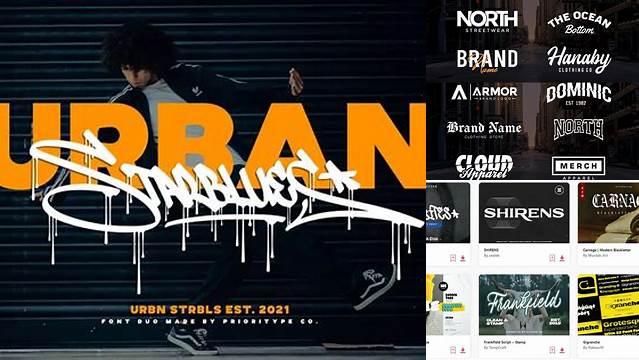
Best Fonts For Streetwear: Design Guide
Streetwear design is all about making a statement, and the fonts you choose play a massive role in conveying that message. Whether you're crafting a logo, designing a t-shirt, or putting together a whole collection, the right font can elevate your streetwear from basic to iconic. Forget those generic, overused fontsβwe're diving deep into the world of typography to find the best fonts for streetwear design that scream authenticity and edge. In this guide, we'll explore a variety of font styles, from bold and blocky to sleek and modern, giving you the inspiration you need to make your designs pop. So, buckle up, designers, and let's get font-tastic!
1. Bold Sans-Serif Fonts for Streetwear
When it comes to streetwear, bold sans-serif fonts are a go-to choice. They're clean, modern, and pack a visual punch that demands attention. These fonts work particularly well for logos, headlines, and designs where you want to make a strong statement. Imagine a simple yet impactful logo on a t-shirt β a bold sans-serif font can be the perfect way to achieve that. Think about brands like Supreme or Off-White; they often utilize bold, minimalist sans-serif fonts to create a recognizable and impactful brand identity. For example, fonts like Futura, Impact, and Helvetica Neue are excellent starting points. These fonts have a timeless quality and are incredibly versatile. You can use them as-is or tweak them slightly to create something truly unique. Experiment with different weights and letter spacing to find the perfect balance for your design. Remember, the key is to choose a font that reflects the overall vibe of your streetwear brand.
2. Vintage and Retro Fonts in Streetwear
If you're aiming for a more nostalgic or old-school vibe, vintage and retro fonts are your best friends. These fonts often have a textured or slightly distressed look, which adds character and authenticity to your designs. Vintage fonts can evoke a sense of history and craftsmanship, making them ideal for brands that want to connect with a sense of the past. Imagine a classic varsity-style jacket with a vintage-inspired font proclaiming your brand's name. Fonts like Bebas Neue, Montserrat, and League Gothic can give your designs that timeless appeal. Experiment with different textures and effects to enhance the vintage feel. Think about adding a subtle shadow or a distressed overlay to make the font look like it's been around for decades. These little details can make a big difference in creating an authentic retro aesthetic. Don't be afraid to mix and match vintage fonts with modern elements to create a unique and eye-catching design.
3. Distressed Fonts for Urban Apparel
Distressed fonts are perfect for adding a raw and edgy feel to your streetwear designs. These fonts often have rough edges, irregular lines, and a generally worn-out appearance, which can convey a sense of urban grit and authenticity. If your brand is all about pushing boundaries and embracing the unconventional, distressed fonts can be a fantastic way to communicate that message. Think about graffiti-inspired designs or band merchandise β distressed fonts are often used to create a sense of rebellious energy. Fonts like Urban Decay, Stencil, and Grungy can give your designs that authentic, street-level vibe. Experiment with different levels of distress to find the right balance for your design. Too much distress can make the font illegible, so it's important to find a sweet spot. Also, consider the context in which the font will be used. A heavily distressed font might work well for a large graphic on a t-shirt, but it might not be suitable for smaller text on a label or tag.
4. Script and Cursive Fonts for Streetwear Branding
While script and cursive fonts might not be the first thing that comes to mind when you think of streetwear, they can actually be a powerful way to add a touch of elegance and sophistication to your designs. When used sparingly and strategically, script fonts can create a unique contrast with the more rugged and edgy elements of streetwear. Imagine a sleek, minimalist logo with a subtle script font accent or a t-shirt design that combines a bold sans-serif font with a delicate cursive flourish. Fonts like Brush Script MT, Pacifico, and Lobster can add a touch of personality and flair to your designs. However, it's important to choose a script font that is legible and easy to read. Avoid overly ornate or complicated fonts that can be difficult to decipher. Also, consider the overall tone of your brand. A sophisticated script font might not be the best choice for a brand that is all about raw, rebellious energy.
5. Monospace Fonts in Streetwear Design
Monospace fonts, where each character takes up the same amount of horizontal space, offer a unique and tech-inspired aesthetic that can be surprisingly effective in streetwear design. These fonts often evoke a sense of coding, technology, and the digital world, making them ideal for brands that want to project a modern and forward-thinking image. Think about designs that incorporate elements of cyberpunk or futuristic aesthetics β monospace fonts can be the perfect way to complement these themes. Fonts like Courier New, Monaco, and Consolas can give your designs that distinct, technical feel. Experiment with different weights and styles to find the perfect balance for your design. Monospace fonts can be particularly effective for creating logos, labels, and other small text elements. However, they can be less legible for larger blocks of text, so it's important to use them judiciously. Also, consider the overall context in which the font will be used. A monospace font might work well for a minimalist logo on a t-shirt, but it might not be suitable for a large headline on a poster.
6. Graffiti-Inspired Fonts for Street Art Style
For a true street art vibe, graffiti-inspired fonts are a must-have in your design arsenal. These fonts often feature bold, stylized letterforms with a raw and energetic feel, perfectly capturing the spirit of urban art. If your brand is all about embracing the underground culture and celebrating artistic expression, graffiti fonts can be a fantastic way to communicate that message. Imagine a mural-style design on a hoodie or a t-shirt with a bold graffiti-inspired logo. Fonts like Vandalism, Ruthless, and Bombing can give your designs that authentic, street-level edge. Experiment with different colors, textures, and effects to enhance the graffiti aesthetic. Think about adding drips, splatters, and other imperfections to make the font look like it was hand-painted on a wall. These little details can make a big difference in creating an authentic graffiti vibe. However, it's important to use graffiti fonts responsibly and avoid appropriating the culture without giving proper credit.
7. Geometric Fonts for Modern Streetwear
Geometric fonts, characterized by their clean lines, simple shapes, and mathematical precision, offer a modern and sophisticated aesthetic that can be a great fit for streetwear design. These fonts often convey a sense of order, structure, and technical prowess, making them ideal for brands that want to project a contemporary and forward-thinking image. Think about minimalist designs or those that incorporate elements of architecture or engineering β geometric fonts can be the perfect way to complement these themes. Fonts like Futura, Avant Garde, and Century Gothic can give your designs that sleek, modern feel. Experiment with different weights and styles to find the perfect balance for your design. Geometric fonts can be particularly effective for creating logos, headlines, and other prominent text elements. However, they can sometimes feel a bit sterile or impersonal, so it's important to use them judiciously and add other elements to create a sense of warmth and personality. Also, consider the overall context in which the font will be used. A geometric font might work well for a high-end streetwear brand, but it might not be the best choice for a brand that is all about raw, rebellious energy.
8. Handwritten Fonts for a Personal Touch
To add a personal and authentic touch to your streetwear designs, consider using handwritten fonts. These fonts mimic the look of handwriting, adding a human element that can make your designs feel more relatable and approachable. Whether you're creating a custom logo, designing a t-shirt with a handwritten quote, or adding a personal message to a garment, handwritten fonts can help you connect with your audience on a deeper level. Fonts like Amatic SC, Permanent Marker, and Indie Flower can give your designs that unique, handmade feel. Experiment with different styles and weights to find the perfect balance for your design. Some handwritten fonts are bold and assertive, while others are delicate and whimsical. Choose a font that reflects the overall tone of your brand and the message you want to convey. Also, consider the legibility of the font. Avoid overly stylized or complicated fonts that can be difficult to read. Remember, the goal is to add a personal touch without sacrificing clarity.
9. Slab Serif Fonts in Streetwear Graphics
Slab serif fonts, with their bold, blocky serifs, offer a distinctive and powerful aesthetic that can be surprisingly effective in streetwear graphics. These fonts often convey a sense of strength, stability, and authority, making them ideal for brands that want to project a confident and assertive image. Think about designs that incorporate elements of industrial design or vintage signage β slab serif fonts can be the perfect way to complement these themes. Fonts like Rockwell, Courier Prime, and Arvo can give your designs that distinct, impactful feel. Experiment with different weights and styles to find the perfect balance for your design. Slab serif fonts can be particularly effective for creating logos, headlines, and other prominent text elements. However, they can sometimes feel a bit heavy or overwhelming, so it's important to use them judiciously and add other elements to create a sense of balance and visual interest. Also, consider the overall context in which the font will be used. A slab serif font might work well for a streetwear brand that is all about making a bold statement, but it might not be the best choice for a brand that is aiming for a more subtle and understated aesthetic.
10. Outline Fonts for a Modern Look
For a clean and contemporary aesthetic, outline fonts can be a great choice for your streetwear designs. These fonts feature hollow letterforms, creating a light and airy feel that can add a touch of sophistication to your graphics. Whether you're designing a logo, creating a pattern, or adding text to a garment, outline fonts can help you achieve a modern and minimalist look. Fonts like Hollow, Nexa Rust, and Contoura can give your designs that sleek, contemporary edge. Experiment with different line weights and spacing to find the perfect balance for your design. Thicker lines will create a bolder and more impactful look, while thinner lines will create a more delicate and refined feel. Also, consider the color of the outline and the background. A contrasting color will make the font stand out more, while a similar color will create a more subtle and understated effect. Keep in mind that outline fonts can sometimes be less legible than solid fonts, especially at smaller sizes. Make sure the font is easy to read before using it in your designs.
11. Layered Fonts for Unique Designs
Layered fonts are a fantastic way to create unique and eye-catching designs in streetwear. These fonts consist of multiple layers that can be stacked on top of each other to create a variety of different effects. Whether you're designing a logo, creating a pattern, or adding text to a garment, layered fonts can help you achieve a complex and visually interesting look. Think about adding shadows, highlights, or other decorative elements to your text. Fonts like Block Layer, Modular, and Multilayer can give your designs that extra dimension. Experiment with different colors, textures, and blending modes to create a truly unique effect. However, keep in mind that layered fonts can be more complex to work with than traditional fonts. You'll need to use design software that supports layering, and you'll need to be careful to align the layers properly. Also, be aware that layered fonts can sometimes be less legible than simpler fonts, especially at smaller sizes. Make sure the font is easy to read before using it in your designs.
12. 3D Fonts for Eye-Catching Streetwear
To really make your streetwear designs pop, consider using 3D fonts. These fonts create the illusion of depth and dimension, adding a sense of realism and visual interest to your graphics. Whether you're designing a logo, creating a poster, or adding text to a garment, 3D fonts can help you grab attention and make a lasting impression. Imagine a logo that appears to jump off the page or a t-shirt design with text that looks like it's been chiseled from stone. Fonts like Extrude, Depth, and Shadowed can give your designs that extra dimension. Experiment with different lighting effects, shadows, and textures to create a truly realistic look. However, keep in mind that 3D fonts can be more complex to work with than traditional fonts. You'll need to use design software that supports 3D rendering, and you'll need to be careful to create a realistic and believable effect. Also, be aware that 3D fonts can sometimes be less legible than simpler fonts, especially at smaller sizes. Make sure the font is easy to read before using it in your designs.
13. Pixel Fonts for a Retro Gaming Aesthetic
If you're looking to add a touch of retro gaming nostalgia to your streetwear designs, pixel fonts are the way to go. These fonts mimic the look of early video game consoles and computers, creating a pixelated and blocky aesthetic that can be both charming and eye-catching. Whether you're designing a logo, creating a pattern, or adding text to a garment, pixel fonts can help you capture that retro gaming vibe. Think about designs that incorporate elements of 8-bit or 16-bit graphics β pixel fonts can be the perfect way to complement these themes. Fonts like 8-Bit Madness, Pixel Operator, and Press Start 2P can give your designs that distinct, retro feel. Experiment with different colors and sizes to create a truly authentic look. However, keep in mind that pixel fonts can be less legible than traditional fonts, especially at smaller sizes. Make sure the font is easy to read before using it in your designs.
14. Brush Fonts for Artistic Flair
Brush fonts are an excellent choice for adding an artistic and expressive touch to your streetwear designs. These fonts mimic the look of hand-painted brushstrokes, creating a dynamic and organic feel that can add a sense of personality and flair to your graphics. Whether you're designing a logo, creating a poster, or adding text to a garment, brush fonts can help you convey a sense of creativity and originality. Imagine a logo with a hand-painted feel or a t-shirt design with text that looks like it was brushed onto the fabric. Fonts like Selima, Milkshake, and Stay Radical can give your designs that artistic edge. Experiment with different brush styles and textures to create a truly unique look. However, keep in mind that brush fonts can sometimes be less legible than traditional fonts, especially at smaller sizes. Make sure the font is easy to read before using it in your designs.
15. Stencil Fonts for Industrial Style
For a rugged and industrial aesthetic, stencil fonts are a perfect choice for your streetwear designs. These fonts mimic the look of stenciled lettering, creating a bold and utilitarian feel that can add a sense of authenticity and grit to your graphics. Whether you're designing a logo, creating a pattern, or adding text to a garment, stencil fonts can help you convey a sense of durability and strength. Think about designs that incorporate elements of military or industrial design β stencil fonts can be the perfect way to complement these themes. Fonts like Stencil, Army, and Railroad can give your designs that distinct, industrial edge. Experiment with different stencil styles and textures to create a truly authentic look. However, keep in mind that stencil fonts can sometimes be less legible than traditional fonts, especially at smaller sizes. Make sure the font is easy to read before using it in your designs.
16. Condensed Fonts for Space Optimization
When you need to fit a lot of text into a limited space, condensed fonts are your best friend in streetwear design. These fonts are designed with narrower letterforms, allowing you to squeeze more text into a smaller area without sacrificing legibility. Whether you're designing a label, creating a tag, or adding text to a garment, condensed fonts can help you maximize your space and get your message across effectively. Fonts like Bebas Neue, Montserrat Condensed, and Oswald can give you that extra space you need. Experiment with different weights and styles to find the perfect balance for your design. However, be careful not to over-condense the font, as this can make it difficult to read. Also, consider the overall context in which the font will be used. A condensed font might work well for a label on a t-shirt, but it might not be suitable for a headline on a poster.
17. Extended Fonts for Visual Impact
On the flip side, if you want to create a bold and impactful visual statement, extended fonts can be a great choice for your streetwear designs. These fonts are designed with wider letterforms, giving them a larger and more imposing presence. Whether you're designing a logo, creating a poster, or adding text to a garment, extended fonts can help you grab attention and make a lasting impression. Think about designs that need to command attention and stand out from the crowd β extended fonts can be the perfect way to achieve that. Fonts like Impact, Ultra, and Wide Latin can give your designs that extra visual punch. Experiment with different weights and styles to find the perfect balance for your design. However, be careful not to over-extend the font, as this can make it difficult to read. Also, consider the overall context in which the font will be used. An extended font might work well for a logo on a t-shirt, but it might not be suitable for a large block of text.
18. Rounded Fonts for a Friendly Vibe
To create a friendly and approachable vibe in your streetwear designs, consider using rounded fonts. These fonts feature soft, rounded edges, giving them a warm and inviting feel that can make your designs more appealing to a wider audience. Whether you're designing a logo, creating a pattern, or adding text to a garment, rounded fonts can help you connect with your audience on a more personal level. Think about brands that want to project a sense of warmth and inclusivity β rounded fonts can be the perfect way to communicate that message. Fonts like Comfortaa, Quicksand, and Nunito can give your designs that friendly touch. Experiment with different weights and styles to find the perfect balance for your design. However, be careful not to overuse rounded fonts, as this can make your designs feel too childish or informal. Also, consider the overall context in which the font will be used. A rounded font might work well for a streetwear brand that is targeting a younger audience, but it might not be the best choice for a brand that is aiming for a more sophisticated and edgy aesthetic.
19. Italic Fonts for Emphasis and Style
Italic fonts are a versatile tool for adding emphasis and style to your streetwear designs. These fonts feature slanted letterforms, creating a sense of movement and dynamism that can draw the eye and highlight important information. Whether you're designing a headline, creating a caption, or adding a subtle accent to your text, italic fonts can help you add a touch of sophistication and flair to your graphics. Use them sparingly to emphasize key words or phrases, or use them more liberally to create a sense of flow and energy. Fonts like Helvetica Italic, Times New Roman Italic, and Arial Italic can give your designs that extra touch of style. Experiment with different weights and styles to find the perfect balance for your design. However, be careful not to overuse italic fonts, as this can make your designs feel cluttered or overwhelming. Also, consider the overall context in which the font will be used. An italic font might work well for a quote on a t-shirt, but it might not be suitable for a logo or a headline.
20. Light Fonts for Elegance and Subtlety
For a touch of elegance and subtlety in your streetwear designs, light fonts are an excellent choice. These fonts feature thin, delicate letterforms, creating a sense of airiness and refinement that can add a touch of sophistication to your graphics. Whether you're designing a logo, creating a pattern, or adding text to a garment, light fonts can help you convey a sense of understated style and sophistication. Think about brands that want to project a sense of luxury and exclusivity β light fonts can be the perfect way to communicate that message. Fonts like Open Sans Light, Lato Light, and Roboto Light can give your designs that elegant touch. Experiment with different weights and styles to find the perfect balance for your design. However, be careful not to overuse light fonts, as this can make your designs difficult to read, especially on busy backgrounds. Also, consider the overall context in which the font will be used. A light font might work well for a logo on a high-end garment, but it might not be suitable for a headline on a poster.
21. Heavy Fonts for Maximum Impact
When you need to make a bold and unforgettable statement, heavy fonts are the way to go in streetwear design. These fonts feature thick, weighty letterforms, creating a sense of power and authority that can command attention and leave a lasting impression. Whether you're designing a logo, creating a poster, or adding text to a garment, heavy fonts can help you grab attention and make a statement. Think about brands that want to project a sense of strength and dominance β heavy fonts can be the perfect way to communicate that message. Fonts like Impact, Bebas Neue Bold, and Arial Black can give your designs that maximum impact. Experiment with different colors and styles to create a truly unforgettable look. However, be careful not to overuse heavy fonts, as this can make your designs feel overwhelming or aggressive. Also, consider the overall context in which the font will be used. A heavy font might work well for a logo on a t-shirt, but it might not be suitable for a large block of text.
22. All Caps Fonts for Bold Statements
All caps fonts are a classic choice for making bold and assertive statements in streetwear design. By using all uppercase letters, these fonts create a sense of authority and directness that can grab attention and convey a sense of importance. Whether you're designing a logo, creating a headline, or adding text to a garment, all caps fonts can help you make a statement and get your message across effectively. Think about brands that want to project a sense of confidence and power β all caps fonts can be the perfect way to communicate that message. Any font can be used in all caps, but some fonts are specifically designed for this purpose. Experiment with different sizes and styles to find the perfect balance for your design. However, be careful not to overuse all caps fonts, as this can make your designs feel aggressive or shouty. Also, consider the overall context in which the font will be used. All caps fonts might work well for a logo or a headline, but they might not be suitable for a large block of text.
23. Lowercase Fonts for a Modern Twist
For a modern and contemporary twist on streetwear design, consider using lowercase fonts. By using all lowercase letters, these fonts create a sense of informality and approachability that can make your designs feel more friendly and inviting. Whether you're designing a logo, creating a headline, or adding text to a garment, lowercase fonts can help you connect with your audience on a more personal level. Think about brands that want to project a sense of inclusivity and accessibility β lowercase fonts can be the perfect way to communicate that message. Any font can be used in lowercase, but some fonts are specifically designed for this purpose. Experiment with different sizes and styles to find the perfect balance for your design. However, be careful not to overuse lowercase fonts, as this can make your designs feel too casual or unprofessional. Also, consider the overall context in which the font will be used. Lowercase fonts might work well for a logo or a headline, but they might not be suitable for a formal document or a legal disclaimer.
24. Variable Fonts for Customization
Variable fonts are the future of typography, offering unparalleled flexibility and customization for your streetwear designs. These fonts allow you to adjust various parameters, such as weight, width, and slant, to create a wide range of different styles from a single font file. Whether you're designing a logo, creating a pattern, or adding text to a garment, variable fonts can help you achieve a unique and personalized look that sets your designs apart from the competition. Think about brands that want to push the boundaries of creativity and innovation β variable fonts can be the perfect tool for achieving that goal. Experiment with different settings and parameters to find the perfect balance for your design. However, keep in mind that variable fonts are a relatively new technology, and not all design software supports them fully. Make sure your software is compatible before using variable fonts in your designs. Also, be aware that variable fonts can sometimes be more complex to work with than traditional fonts. You'll need to understand how to adjust the various parameters to achieve the desired effect.
25. Color Fonts for Vibrant Designs
To add a burst of color and vibrancy to your streetwear designs, consider using color fonts. These fonts feature built-in color palettes, allowing you to create multi-colored text effects without having to manually color each letter. Whether you're designing a logo, creating a poster, or adding text to a garment, color fonts can help you grab attention and make a statement. Think about brands that want to project a sense of fun and playfulness β color fonts can be the perfect way to communicate that message. Experiment with different color combinations and styles to create a truly eye-catching look. However, keep in mind that color fonts are a relatively new technology, and not all design software supports them fully. Make sure your software is compatible before using color fonts in your designs. Also, be aware that color fonts can sometimes be less legible than traditional fonts, especially at smaller sizes. Make sure the font is easy to read before using it in your designs.
26. Font Pairing Techniques for Harmony
Font pairing is an essential skill for creating harmonious and visually appealing streetwear designs. By carefully selecting two or more fonts that complement each other, you can create a sense of balance and visual interest that elevates your designs to the next level. Think about pairing a bold sans-serif font with a delicate script font, or a geometric font with a handwritten font. Experiment with different combinations to find the perfect balance for your design. Consider the overall tone and message you want to convey, and choose fonts that reflect those qualities. Also, pay attention to the contrast between the fonts. Too much contrast can be jarring, while too little contrast can be boring. Aim for a balance that is both visually appealing and easy to read. Remember, the goal is to create a cohesive and unified design that effectively communicates your message.
27. Where to Find Free Streetwear Fonts
Finding the perfect streetwear fonts doesn't have to break the bank. There are plenty of fantastic resources online where you can find free fonts for your design projects. Websites like Google Fonts, Font Squirrel, and DaFont offer a wide selection of high-quality fonts that are free for commercial use. Be sure to check the license agreements for each font to ensure that you are allowed to use it in your designs. Also, be aware that free fonts may not always be as polished or refined as paid fonts. However, with a little bit of searching, you can find some real gems that are perfect for your streetwear designs. Don't be afraid to experiment with different fonts and styles to find the perfect fit for your brand.
28. Premium Font Resources for Designers
If you're looking for the highest quality and most unique fonts for your streetwear designs, consider investing in premium font resources. Websites like MyFonts, Creative Market, and Adobe Fonts offer a wide selection of professionally designed fonts that are guaranteed to impress. While premium fonts may cost more than free fonts, they often offer superior quality, more extensive character sets, and better support. Investing in premium fonts can be a great way to elevate your designs and stand out from the competition. Be sure to carefully research each font before purchasing it to ensure that it meets your needs and fits your budget. Also, consider purchasing a font license that allows you to use the font in a variety of different projects.
29. Font Licensing and Usage Rights
Understanding font licensing and usage rights is crucial for avoiding legal issues and ensuring that you are using fonts properly in your streetwear designs. Before using any font in a commercial project, be sure to carefully review the license agreement to understand what you are allowed to do with the font. Some fonts are free for commercial use, while others require you to purchase a license. Also, some licenses restrict the number of users who can use the font, or the types of projects in which the font can be used. Failure to comply with font licensing agreements can result in legal penalties, so it's important to be diligent and informed. When in doubt, contact the font designer or foundry to clarify any questions you may have about the license.
30. Combining Fonts with Graphics Effectively
The key to a successful streetwear design is effectively combining fonts with graphics. The font you choose should complement the graphics and overall design aesthetic. Consider the font's style, weight, and color in relation to the other elements in your design. A strong font can reinforce the message of your graphic, while a poorly chosen font can detract from it. Experiment with different font and graphic combinations to find the perfect balance for your design. Also, pay attention to the placement of the font in relation to the graphics. The font should be easy to read and visually appealing, without overshadowing the other elements in your design. Remember, the goal is to create a cohesive and unified design that effectively communicates your message.